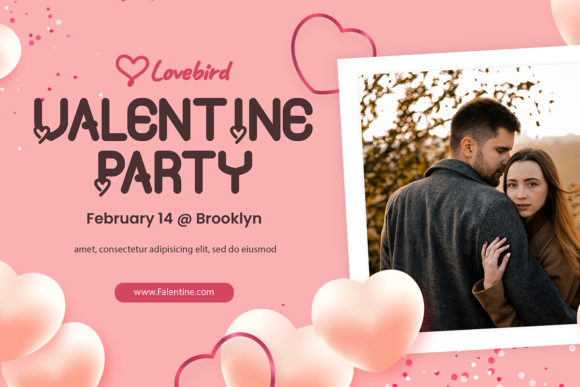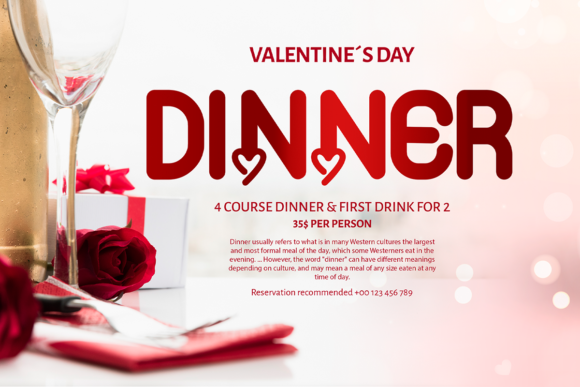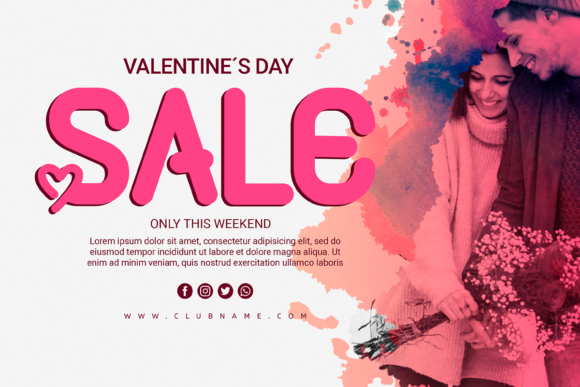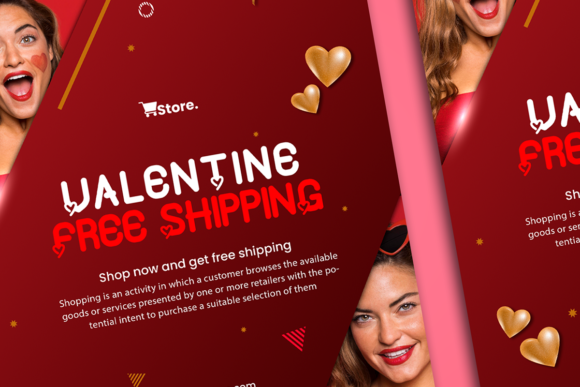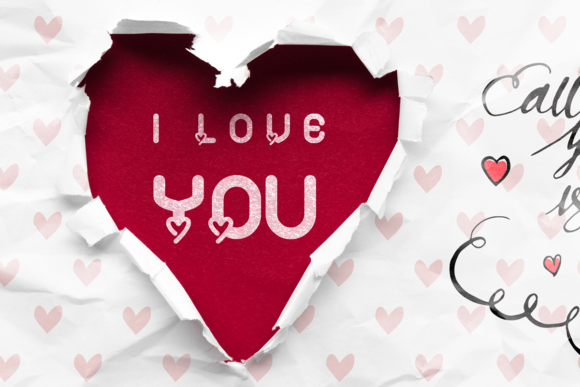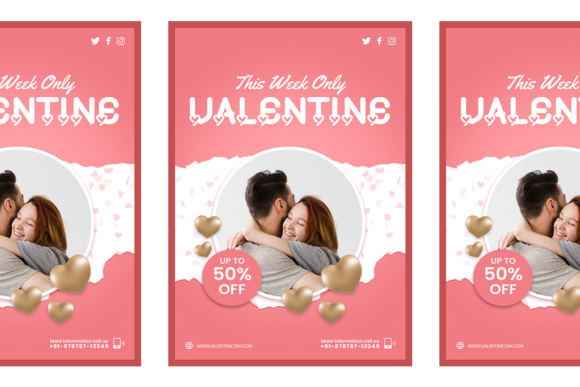
Discover the Charm of Finding Love Font: Elevate Your Designs with a Touch of Whimsy
Are you on the hunt for a font that adds a dash of charm and playfulness to your projects? Look no further than the Finding Love Font, a delightful and versatile typeface that’s sure to capture the hearts of designers and crafters alike. This bold and cute display font is adorned with little heart accents, making it the perfect addition to any project that needs a touch of whimsy and romance.
The Perfect Font for Lovely Projects
Finding Love Font is a multilingual typeface that’s designed to bring a smile to your face. Its unique blend of bold and cute characteristics makes it an excellent choice for a wide range of projects, from brand logos and invitations to greeting cards and beyond. Whether you’re a seasoned designer or a crafty DIY enthusiast, this font is sure to inspire your creativity and add a touch of personality to your work.
Key Features of Finding Love Font
- Bold and Cute Display Font: Finding Love Font is a statement-maker, with a bold and playful design that’s sure to grab attention.
- Heart Accents: The little heart accents scattered throughout the font add a touch of whimsy and romance, making it perfect for projects that require a bit of charm.
- Multilingual Features: With support for multiple languages, Finding Love Font is an excellent choice for designers and crafters who work with international clients or want to add a touch of global flair to their projects.
- Style Variations: The font comes in a range of style variations, allowing you to experiment with different looks and feels to find the perfect fit for your project.
So, what can you create with Finding Love Font? The possibilities are endless! Here are a few ideas to get you started:
- Brand Logos: Add a touch of personality to your brand logo with Finding Love Font, perfect for businesses that want to convey a sense of warmth and approachability.
- Invitations: Create beautiful and eye-catching invitations for weddings, parties, and other special occasions with this charming font.
- Greeting Cards: Add a touch of whimsy to your greeting cards with Finding Love Font, perfect for Valentine’s Day, anniversaries, and other romantic occasions.
- DIY Projects: Use Finding Love Font to add a personal touch to your DIY projects, such as scrapbooking, journaling, and more.
Why Choose Finding Love Font?
With so many fonts on the market, why choose Finding Love Font? Here are just a few reasons why this typeface stands out from the crowd:
- Unique and Playful Design: Finding Love Font is a one-of-a-kind typeface that’s sure to add a touch of personality to your projects.
- Highly Versatile: With its multilingual features and style variations, Finding Love Font can be used for a wide range of projects and applications.
If you’re on the hunt for a font that adds a touch of charm and whimsy to your projects, look no further than Finding Love Font. With its bold and cute display design, little heart accents, and multilingual features, this typeface is perfect for designers and crafters who want to create beautiful and eye-catching projects. So why wait? Download Finding Love Font today and start adding a touch of love to your designs!